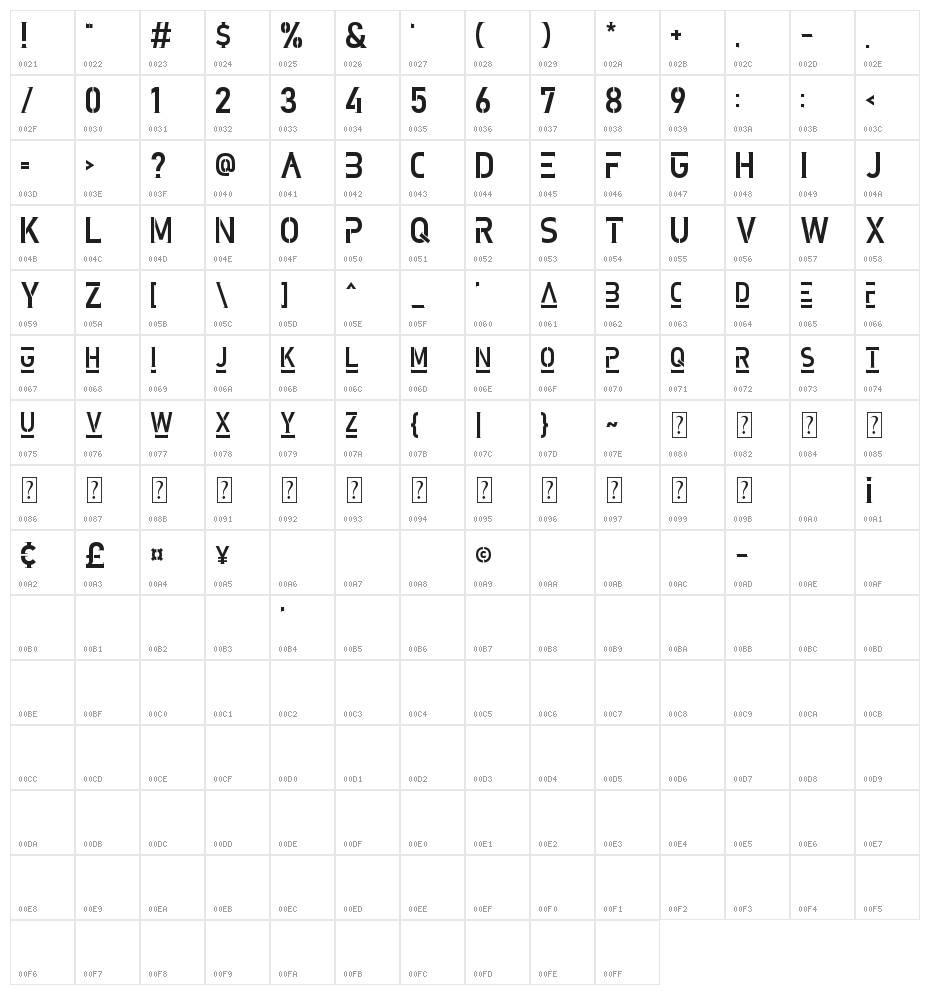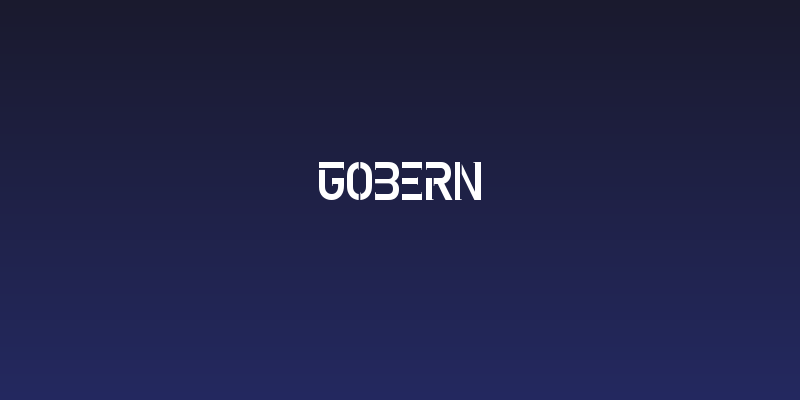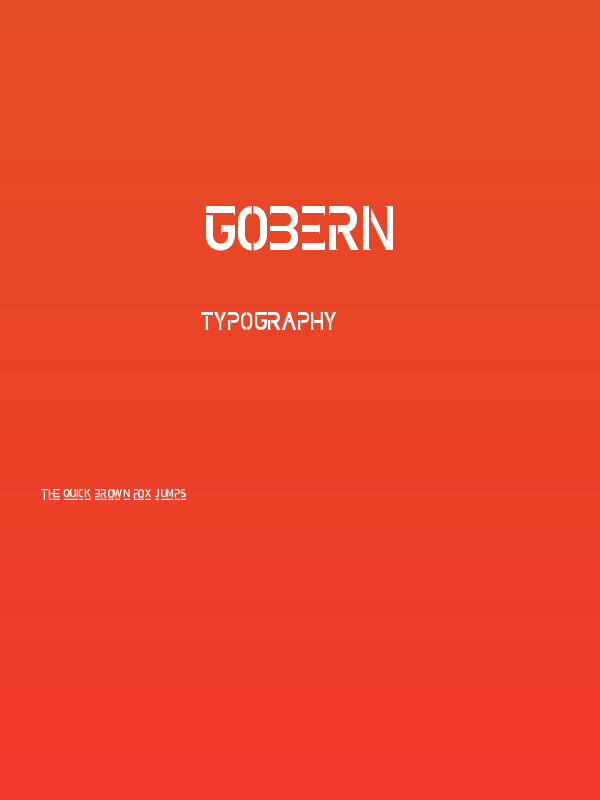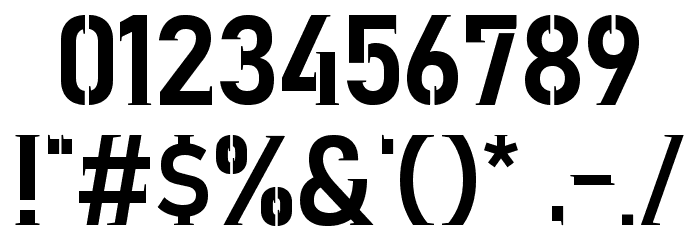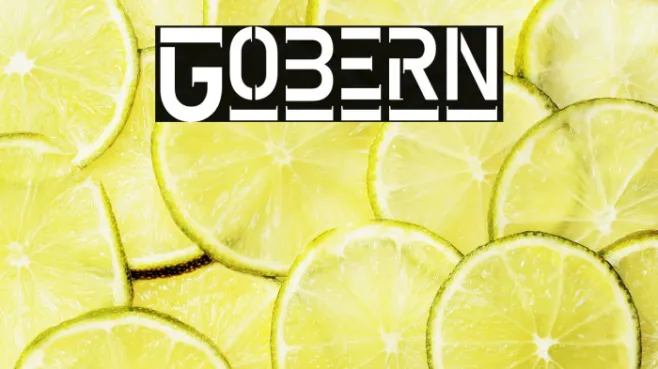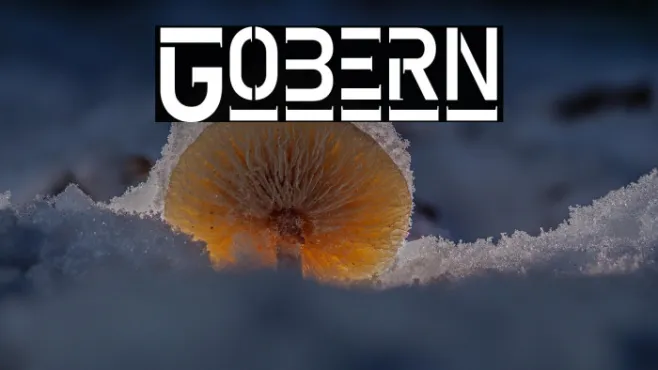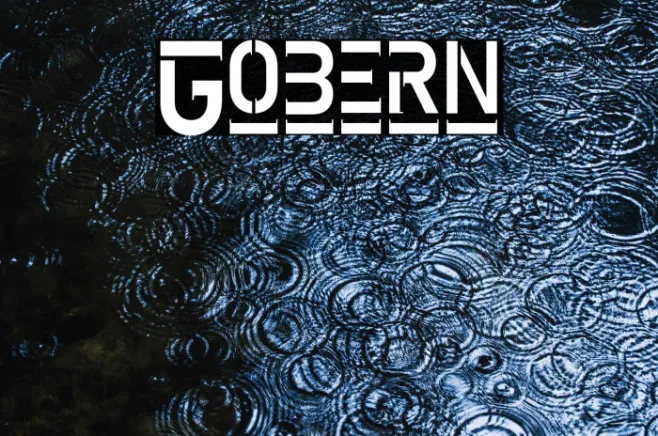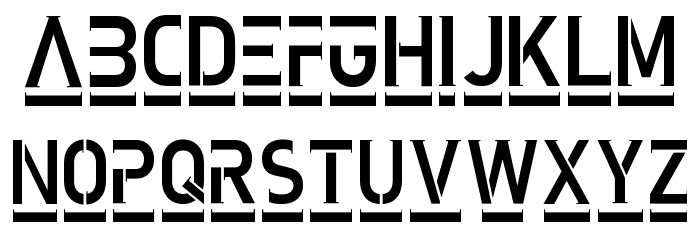
Gobern Font
Gobern Description
This font features a bold, geometric design with a modern and industrial feel. The characters are constructed with straight lines and sharp angles, giving them a mechanical and futuristic appearance. The uppercase letters are particularly striking, with a stencil-like quality that suggests a sense of precision and strength. The numbers and special characters maintain this cohesive style, ensuring consistency across all elements. This font's unique design makes it stand out, offering a distinct visual impact.
| Proposed Projects | Ideal for branding, posters, and signage that require a strong, modern aesthetic. |